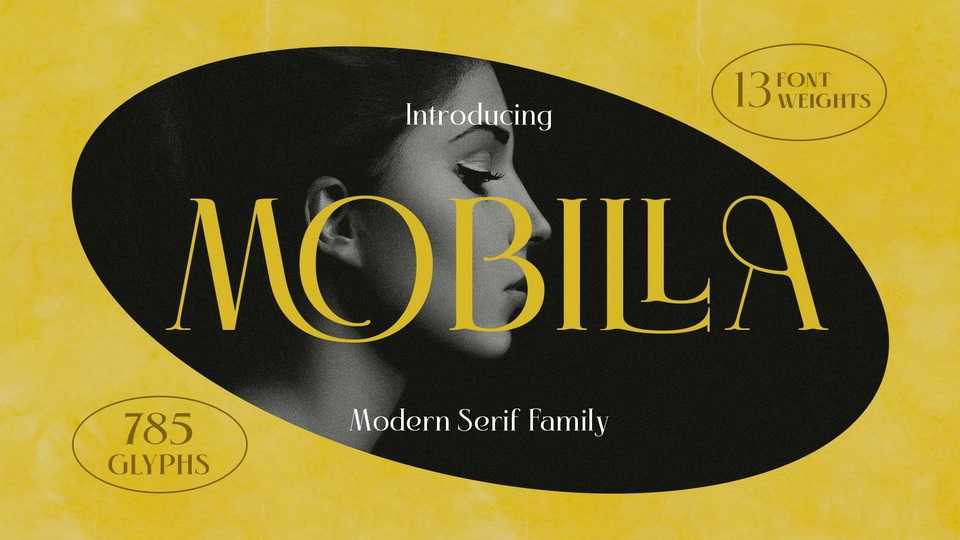
Download Mobilla font, an elegant serif typeface that has a dynamic strokes. The details of the shape of the Mobilla are very smooth and flow to create unique and beautiful curves.